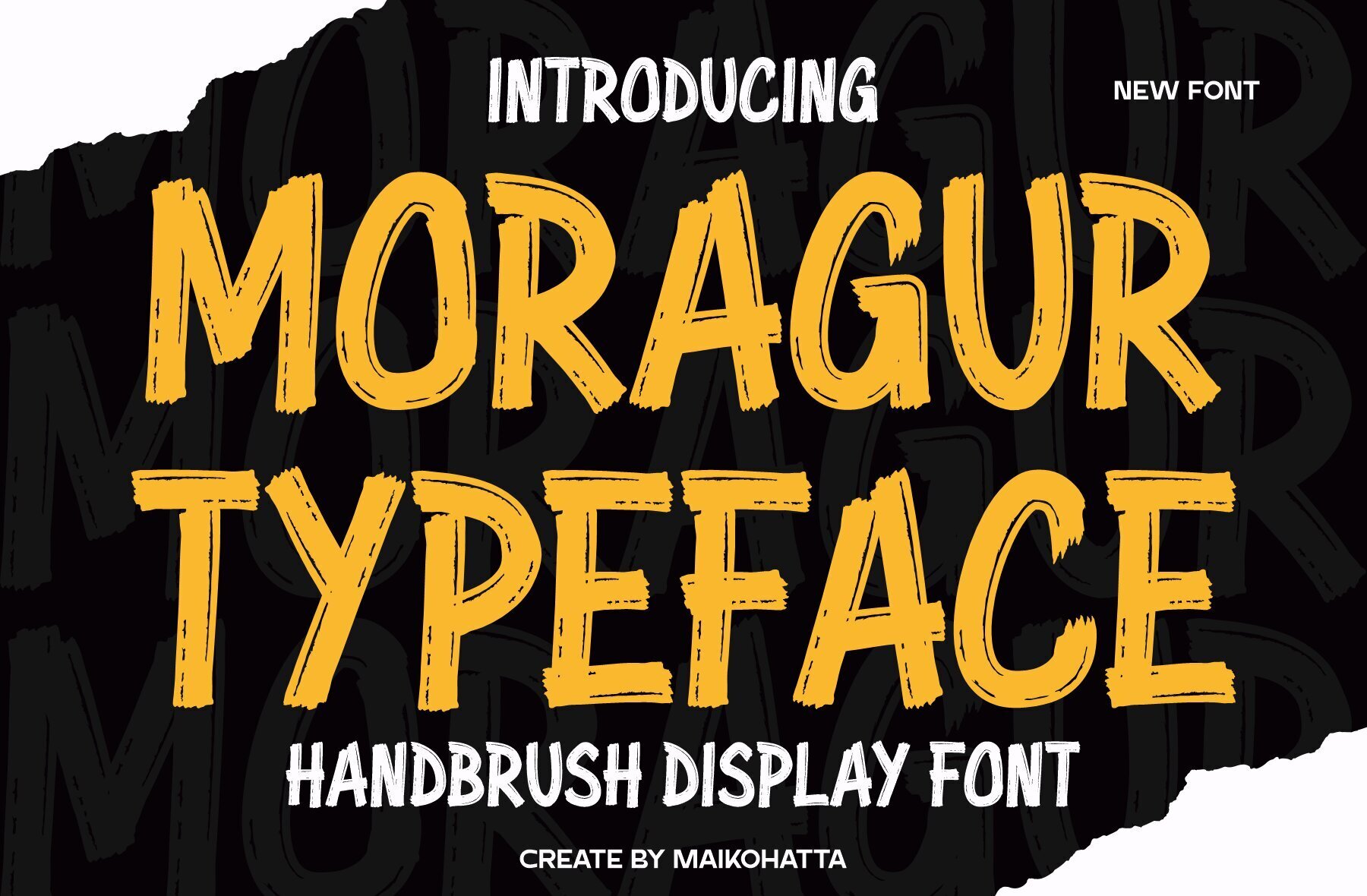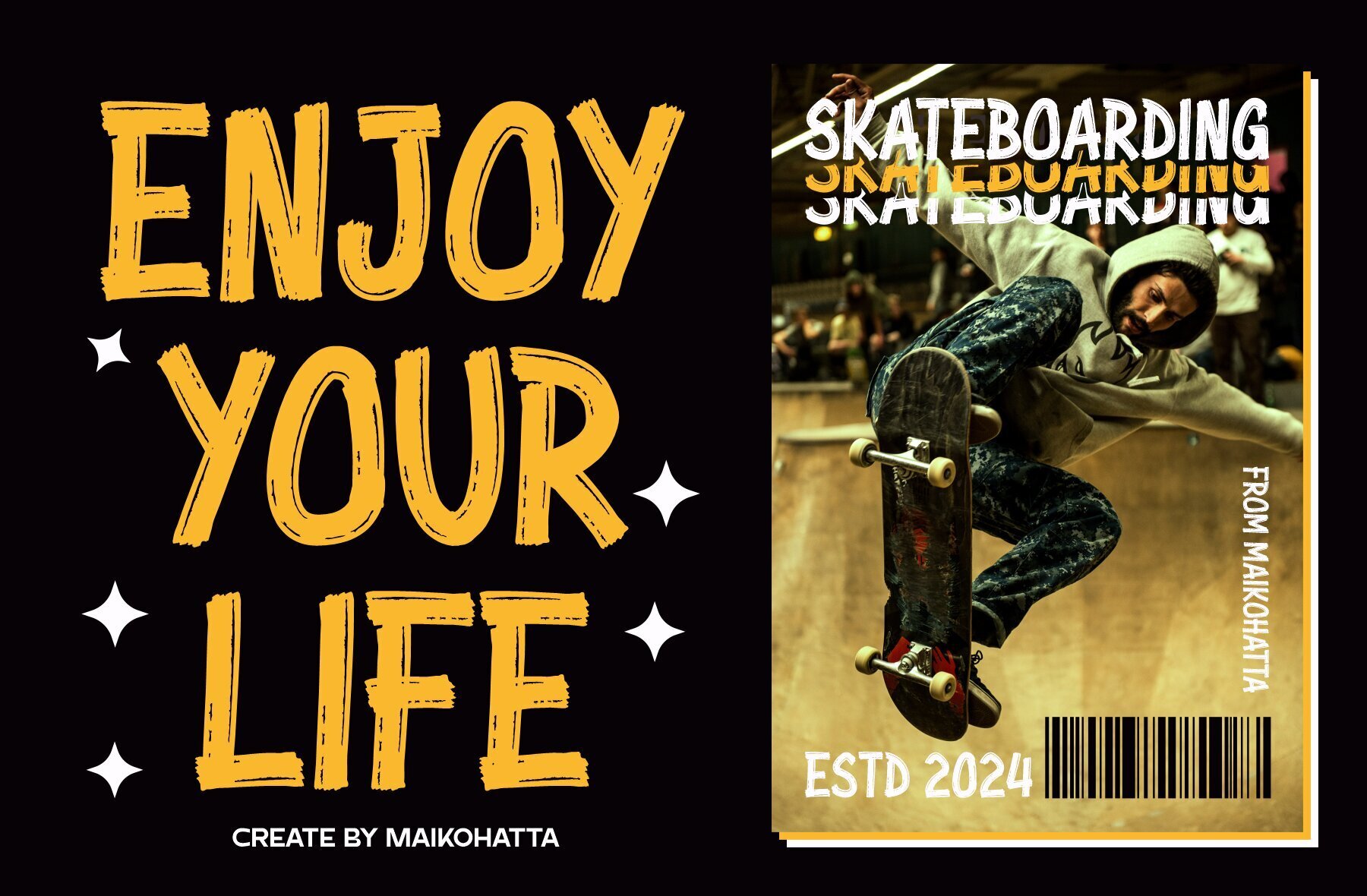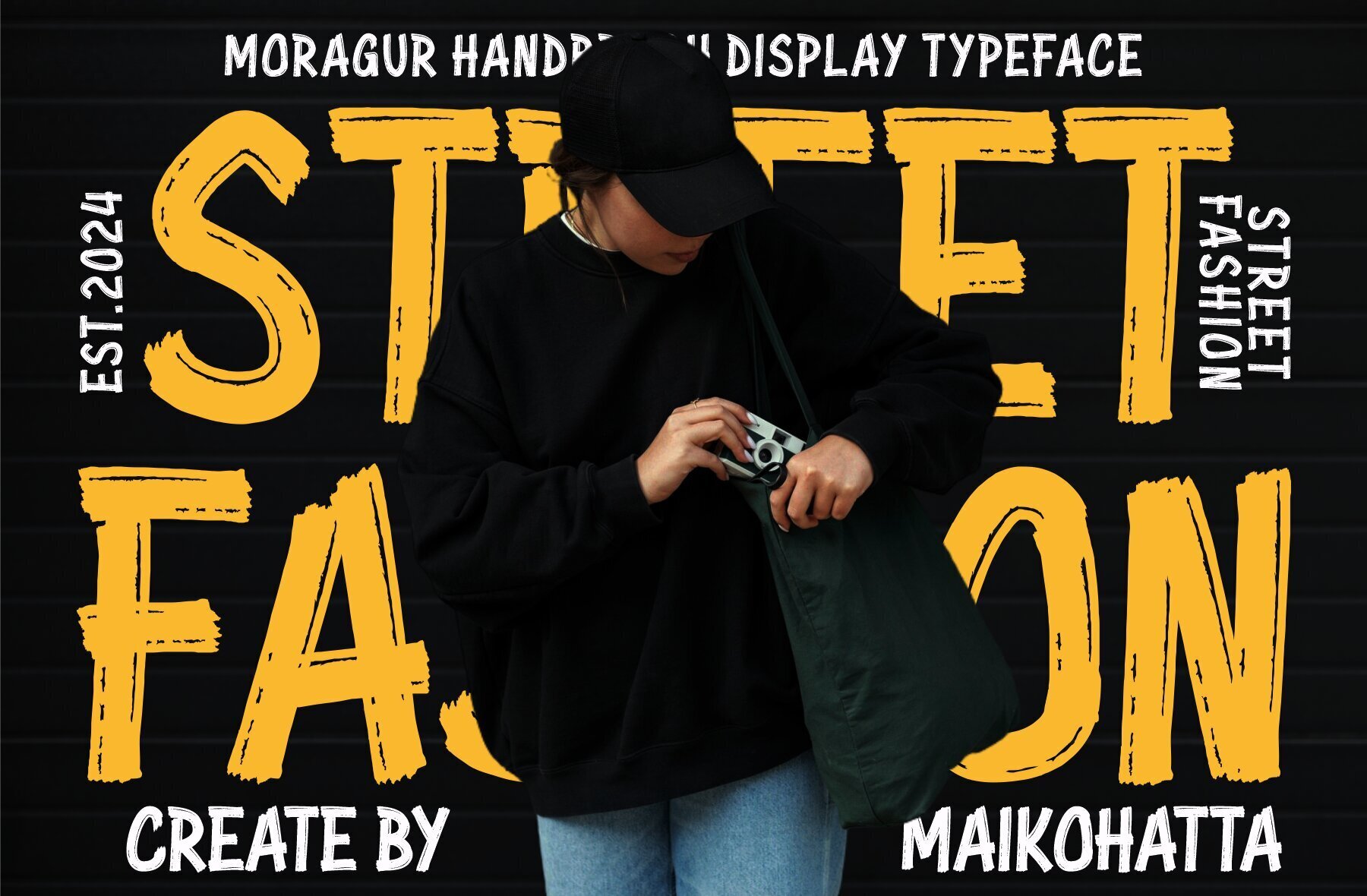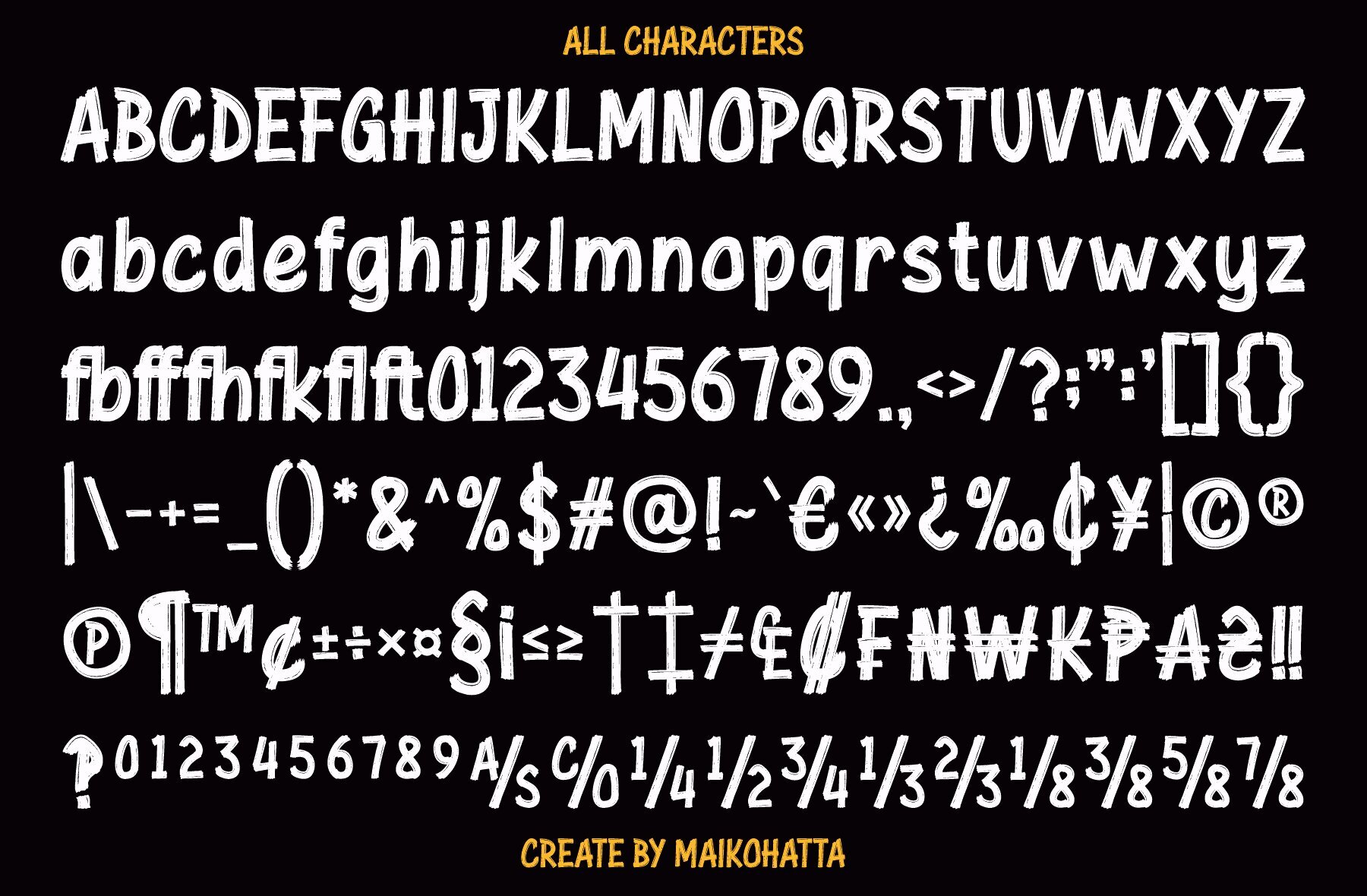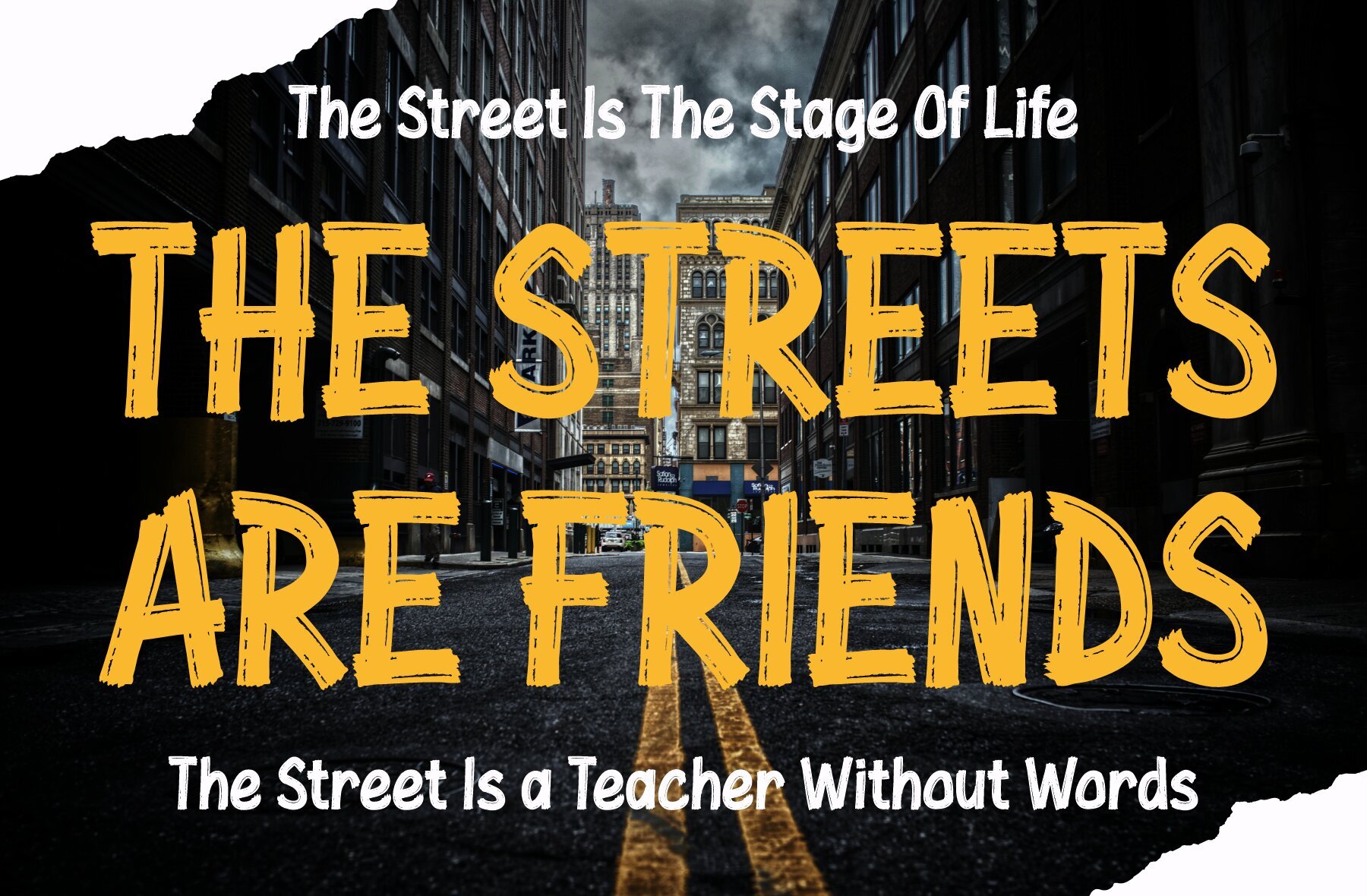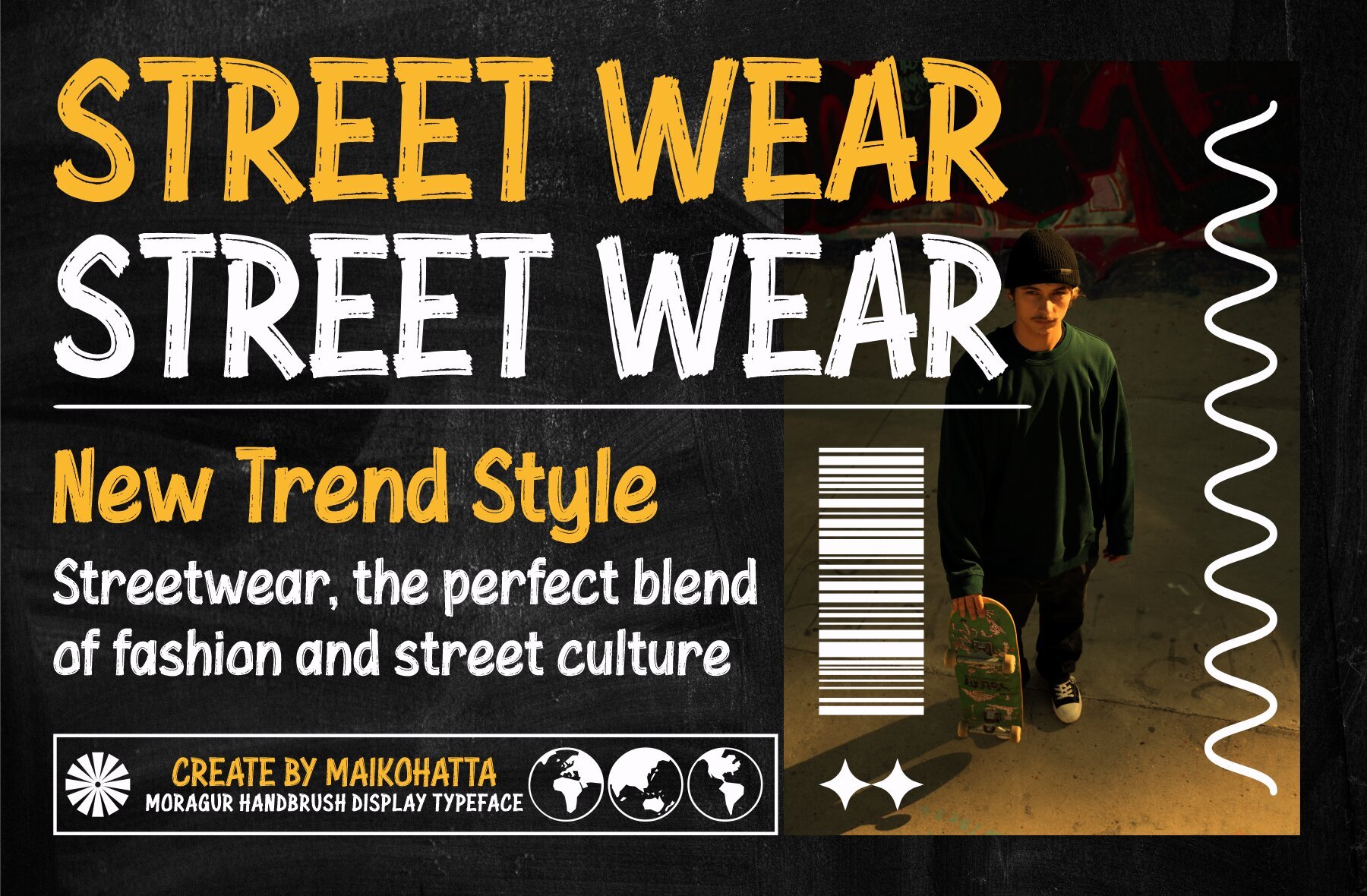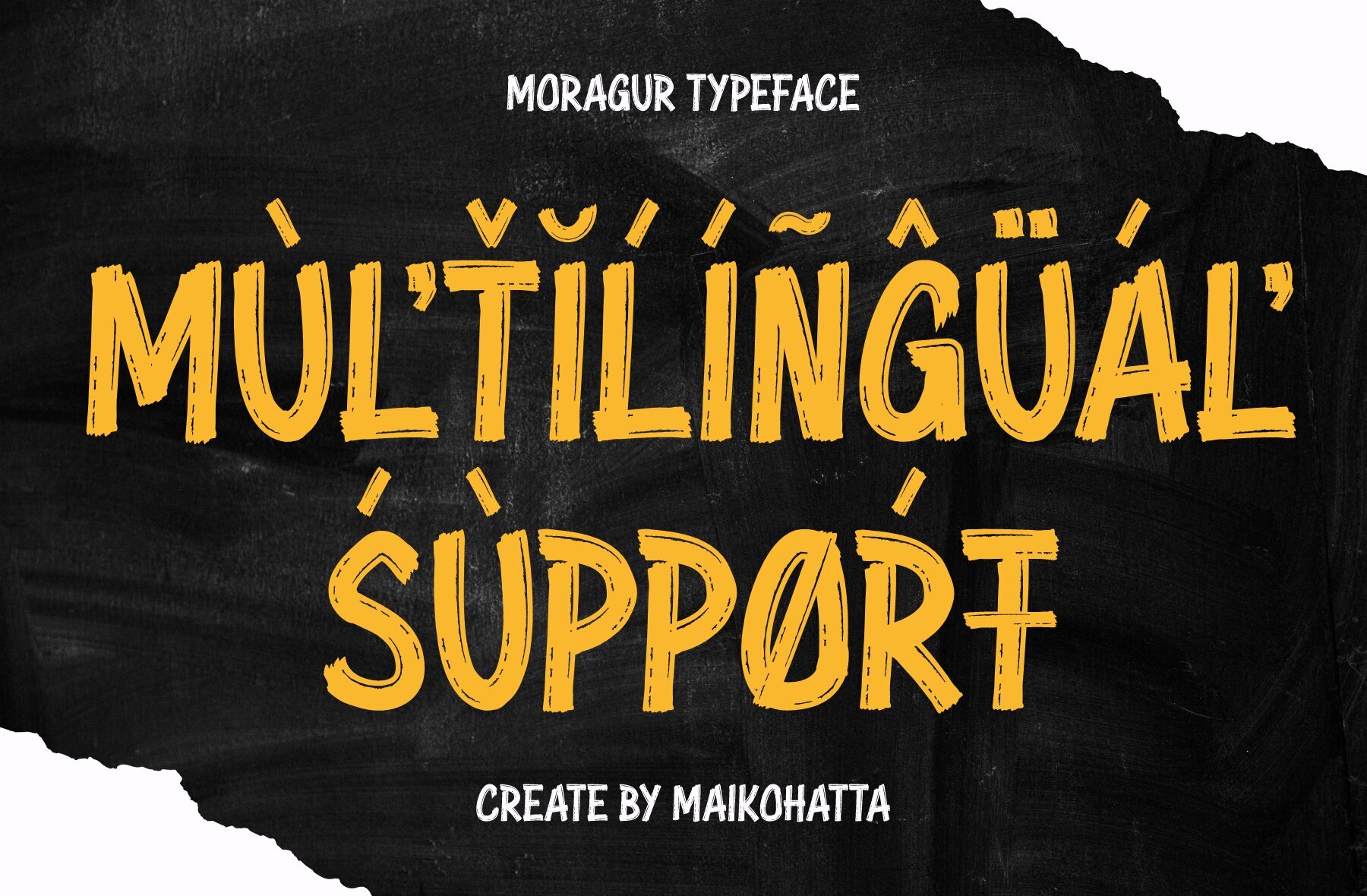
Moragur Font
Moragur Regular
This decorative, script-style font exudes a playful and hand-drawn charm, making it ideal for creative projects that require a whimsical and artistic touch. With its bold and cartoonish texture, it is perfect for headlines, posters, children's books, and any design that seeks to capture an expressive and dynamic vibe.